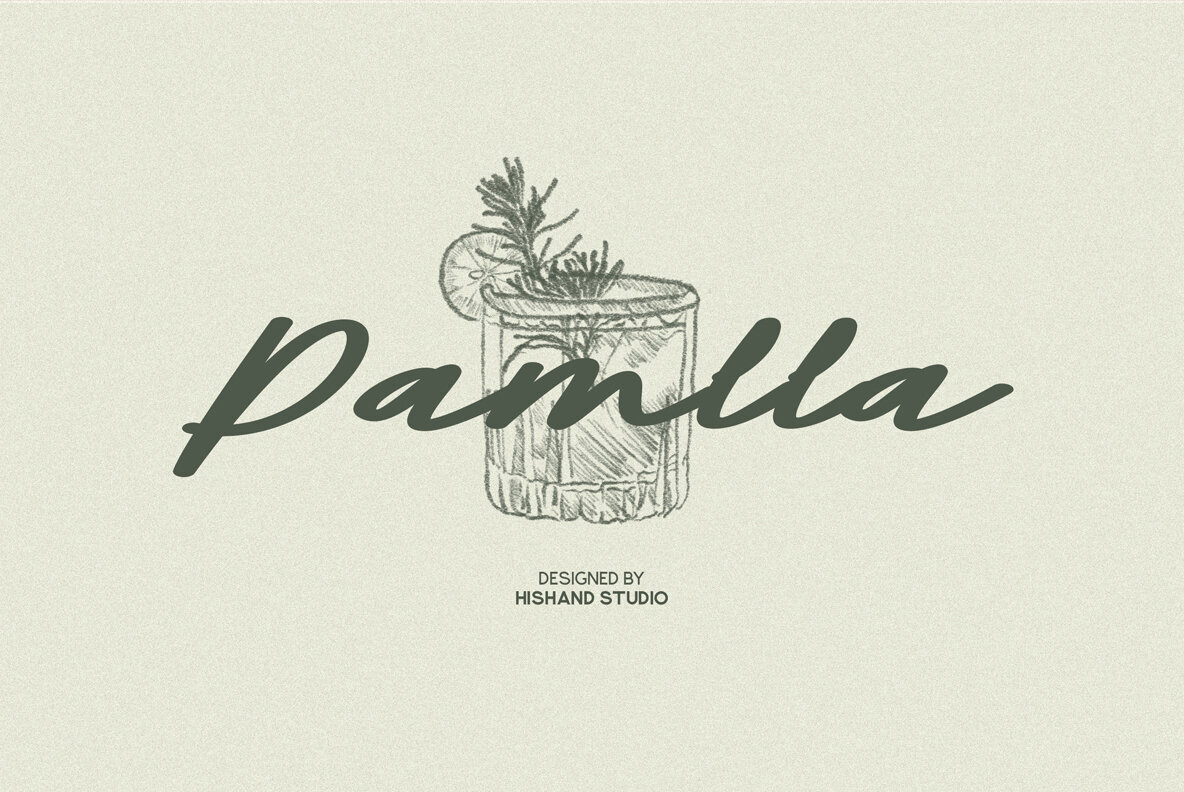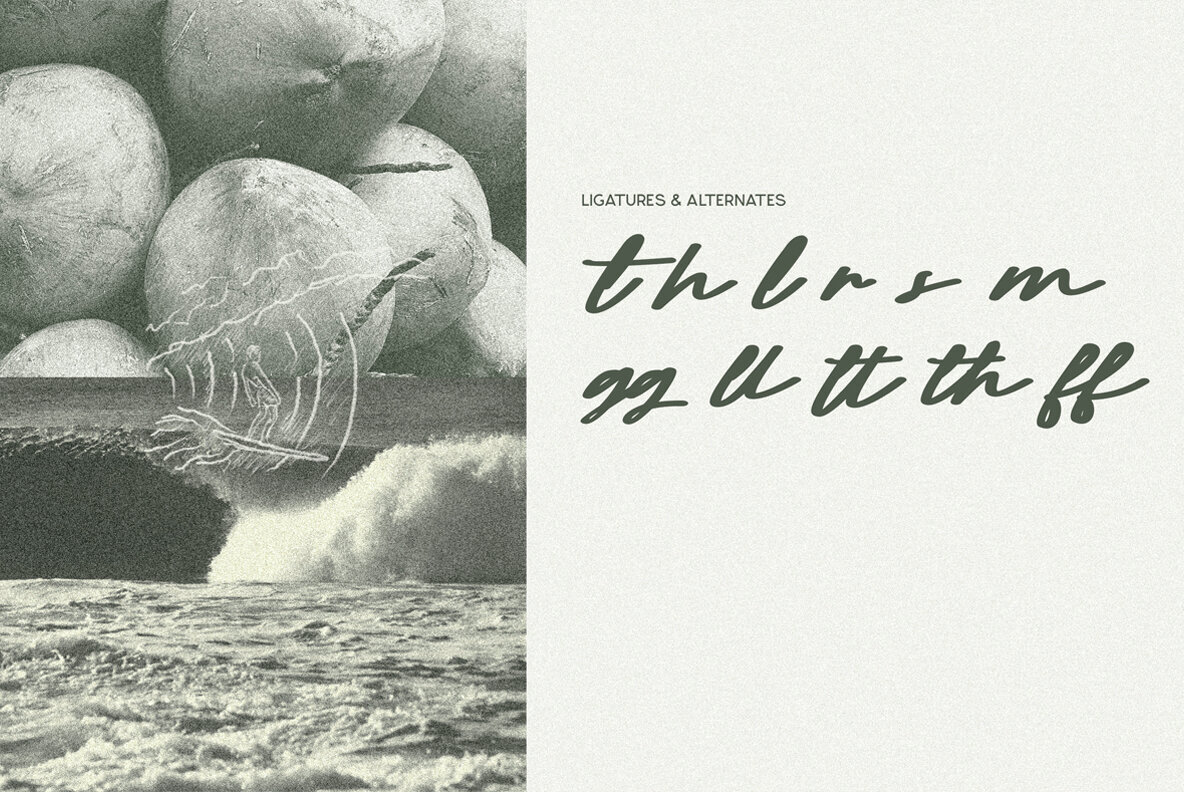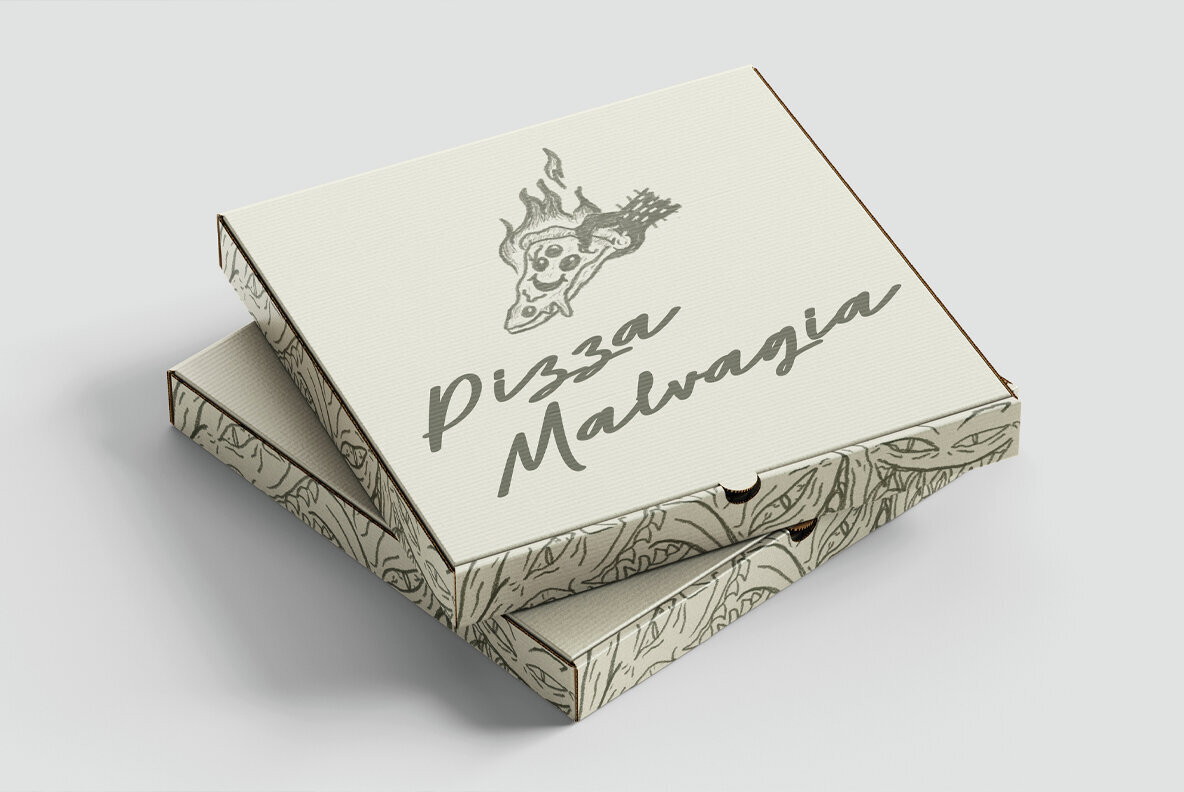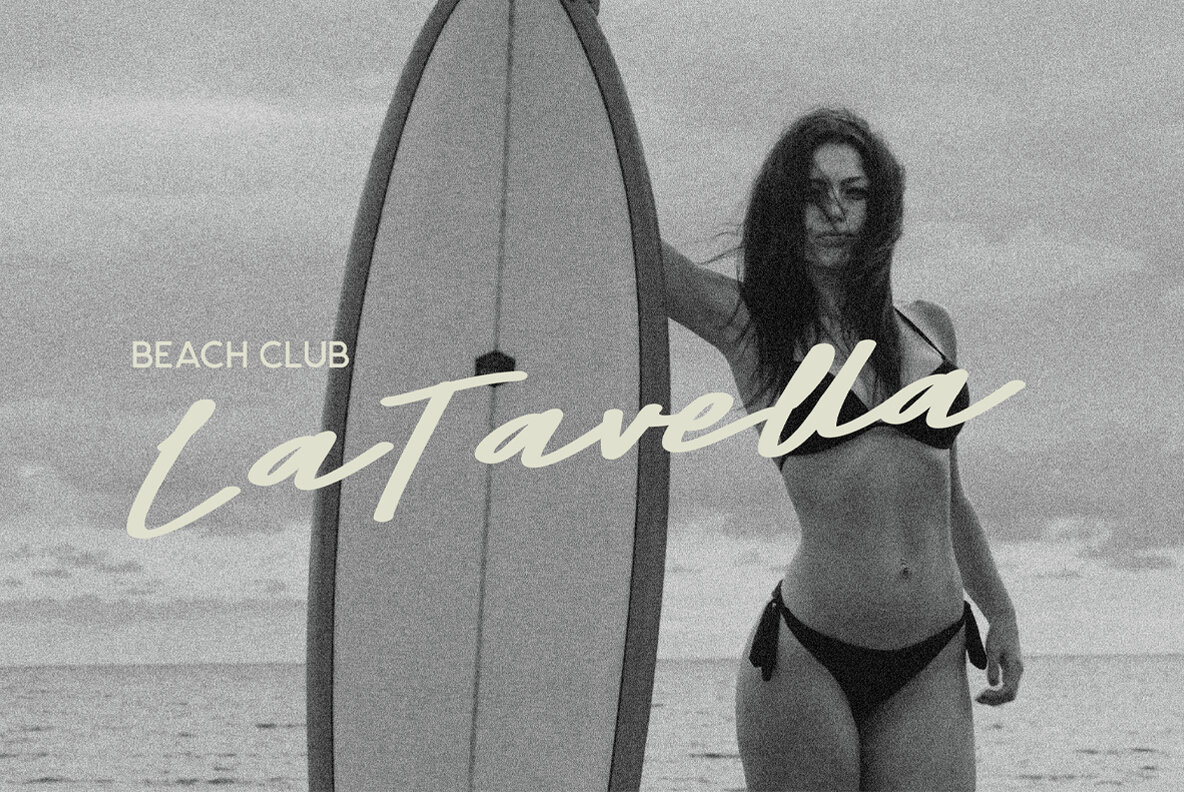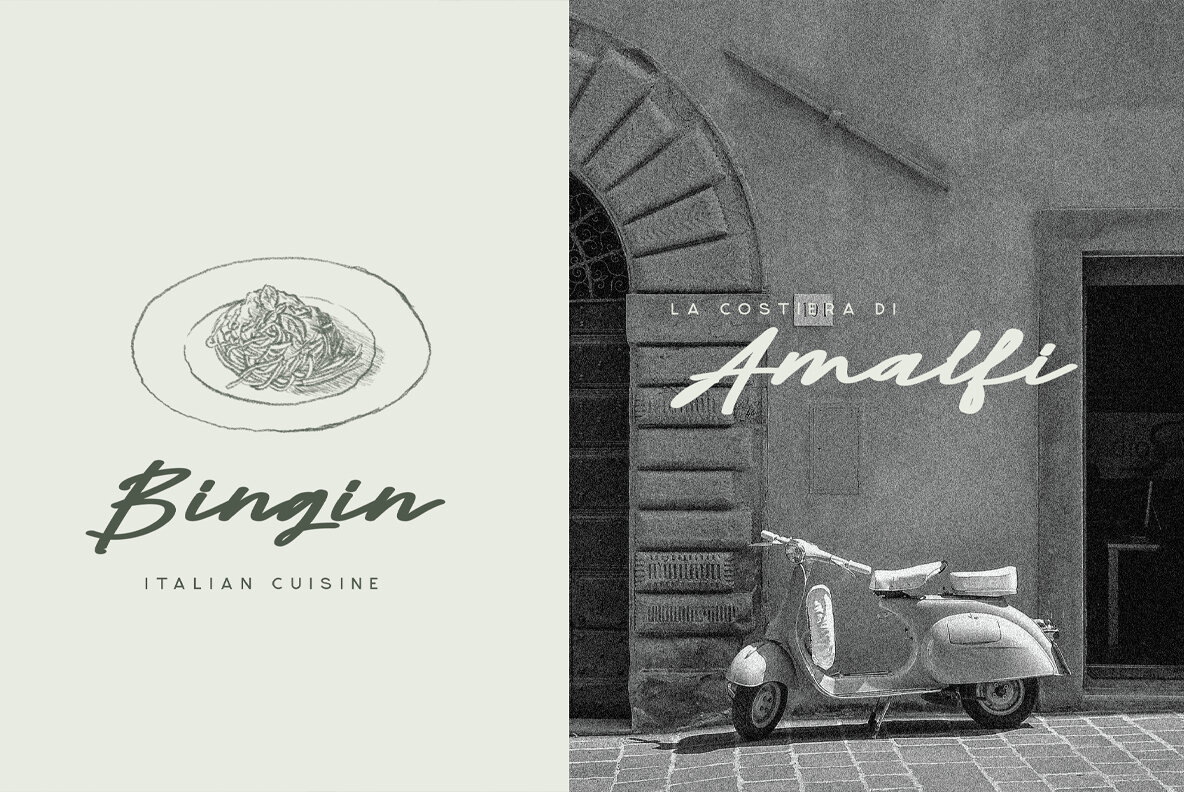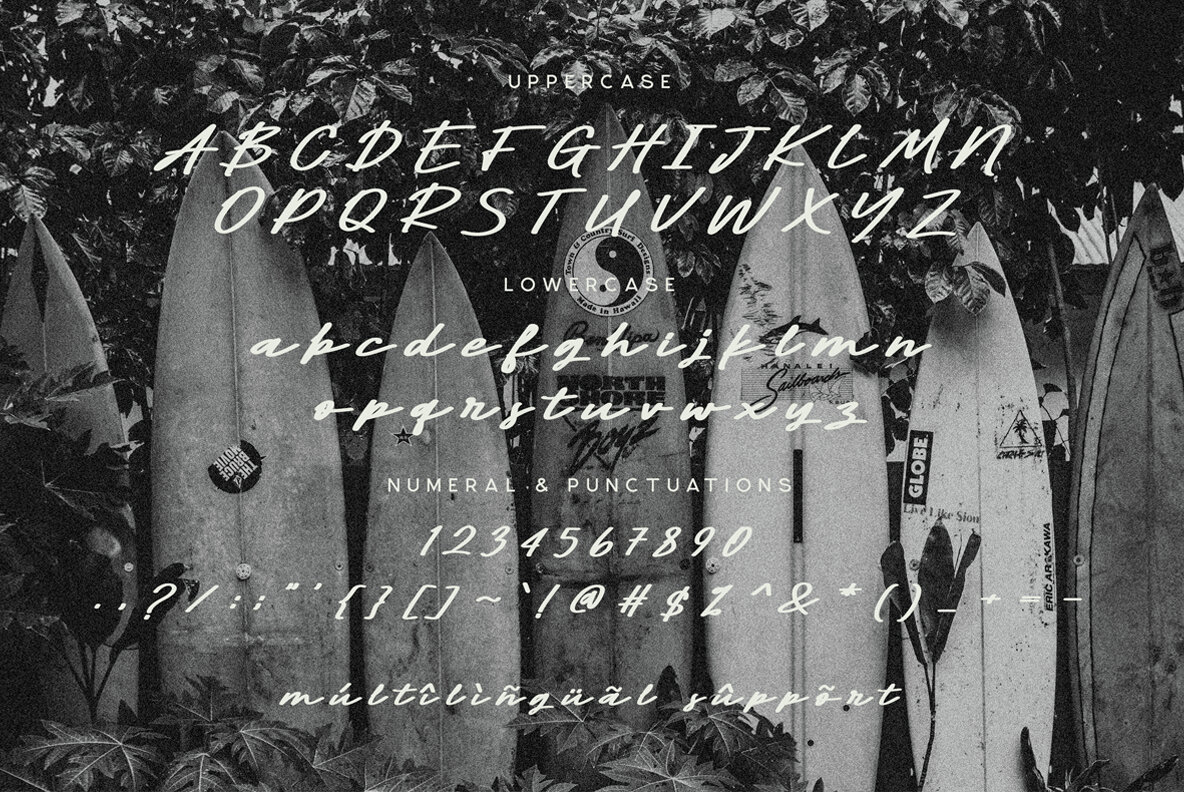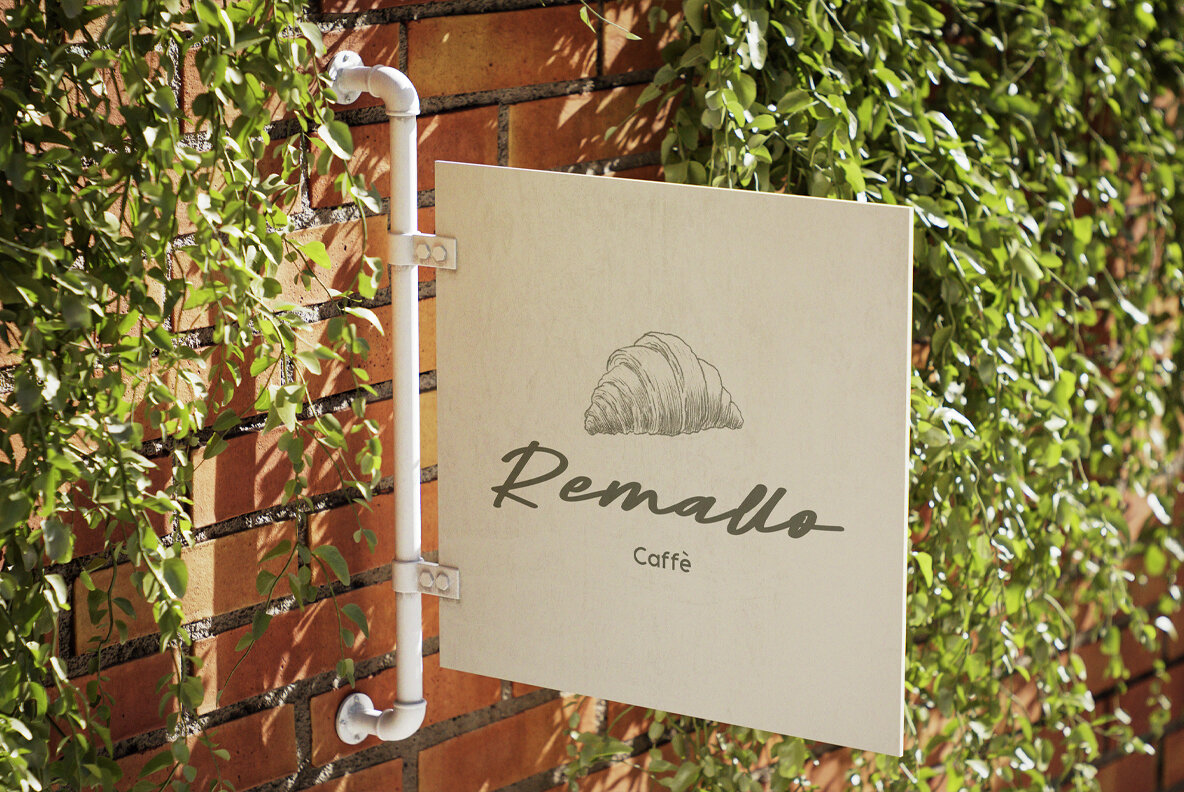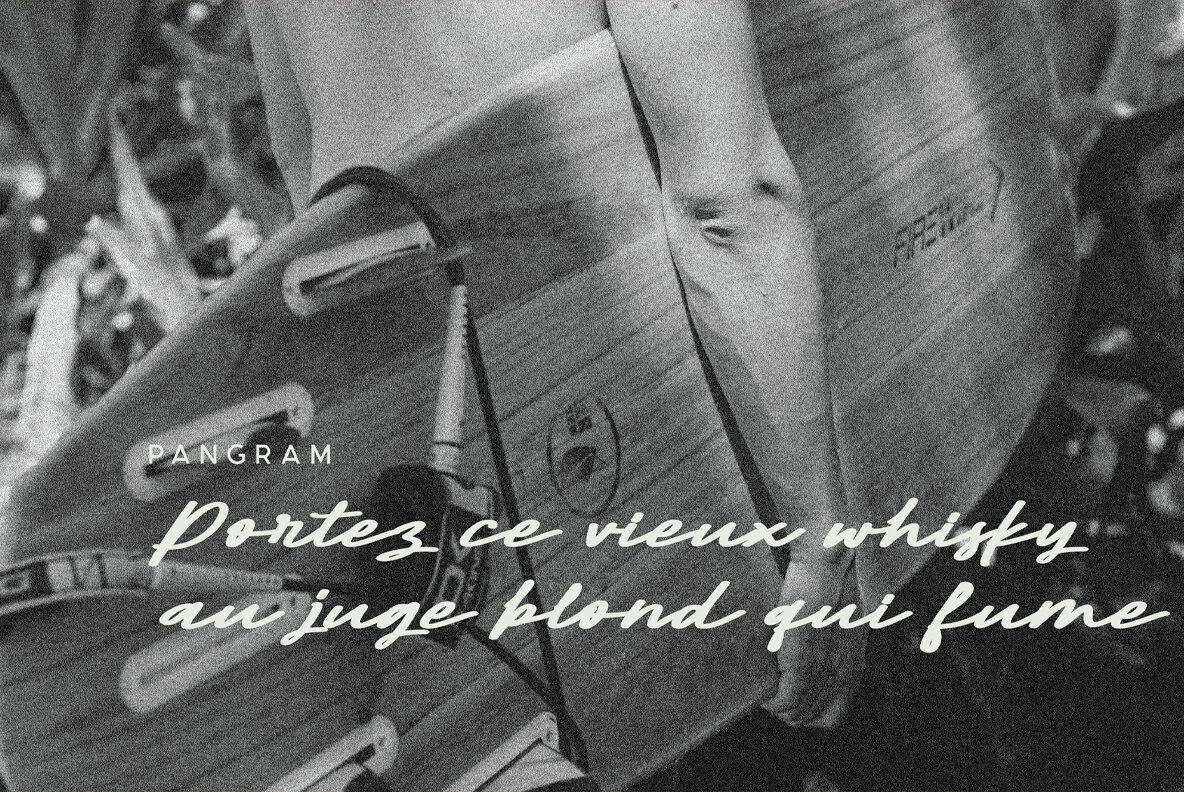
Pamlla Font
Pamlla
Pamlla offers an exquisite blend of aesthetic appeal and timeless elegance. Its flowing letterforms and delicate curves introduce a refined, handcrafted quality suitable for branding, invitations, logos, and editorial design. This script font achieves a harmonious balance between beauty and readability, making it an ideal choice for projects requiring both sophistication and clarity. From wedding stationery to upscale packaging and stylish social media graphics, Pamlla adds a touch of class to any visual identity.Pamlla: An Elegant Script Font for All Occasions